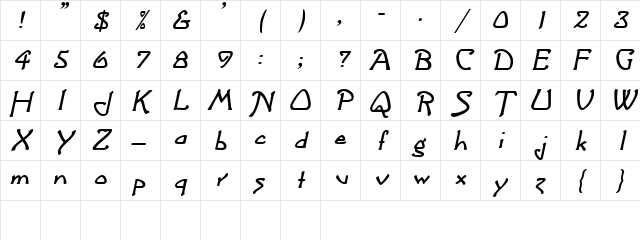
Argonaut BoldItalic
Argonaut Family
Design Context for Argonaut
Argonaut is a composed and adaptable typeface that performs quietly and consistently across a wide range of design contexts. The slanted form adds forward momentum and visual energy. Its bold stroke weight gives it real presence on the page.
Pro Tip: Use Argonaut for emphasis, pull quotes, and subheadings where its slanted energy can add rhythm to the layout.